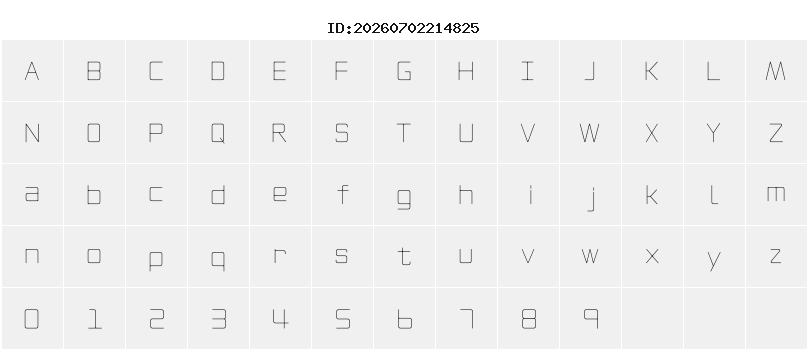
025-上首锐圆极细体 Preview
• Font Name: 025-上首锐圆极细体
• Font ID: 025-SSRuiYuanJiXiTi:Version 1.00
• Full Font Name: 025-上首锐圆极细体
• Version: Version 1.00 July 28, 2021, initial release
• PostScript Name: 025-SSRuiYuanJiXiTi
• Character Count: 7569
• Manufacturer: 上首造字
About 025-上首锐圆极细体.ttf
025-上首锐圆极细体.ttf is a modern, elegant sans-serif font designed for ultimate readability and visual harmony. Perfect for branding, headlines, web design, and print materials.